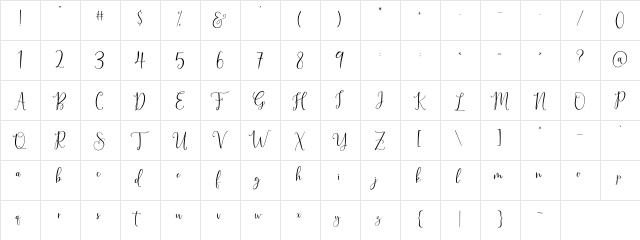
SinfoniettaPersonalUseOnly Regular
| Foundry | Jimtype Studio |
| Designer | Jamaludin @JimtypeStudio |
Design Context for SinfoniettaPersonalUseOnly Typeface
SinfoniettaPersonalUseOnly is a composed and adaptable typeface that performs quietly and consistently across a wide range of design contexts.